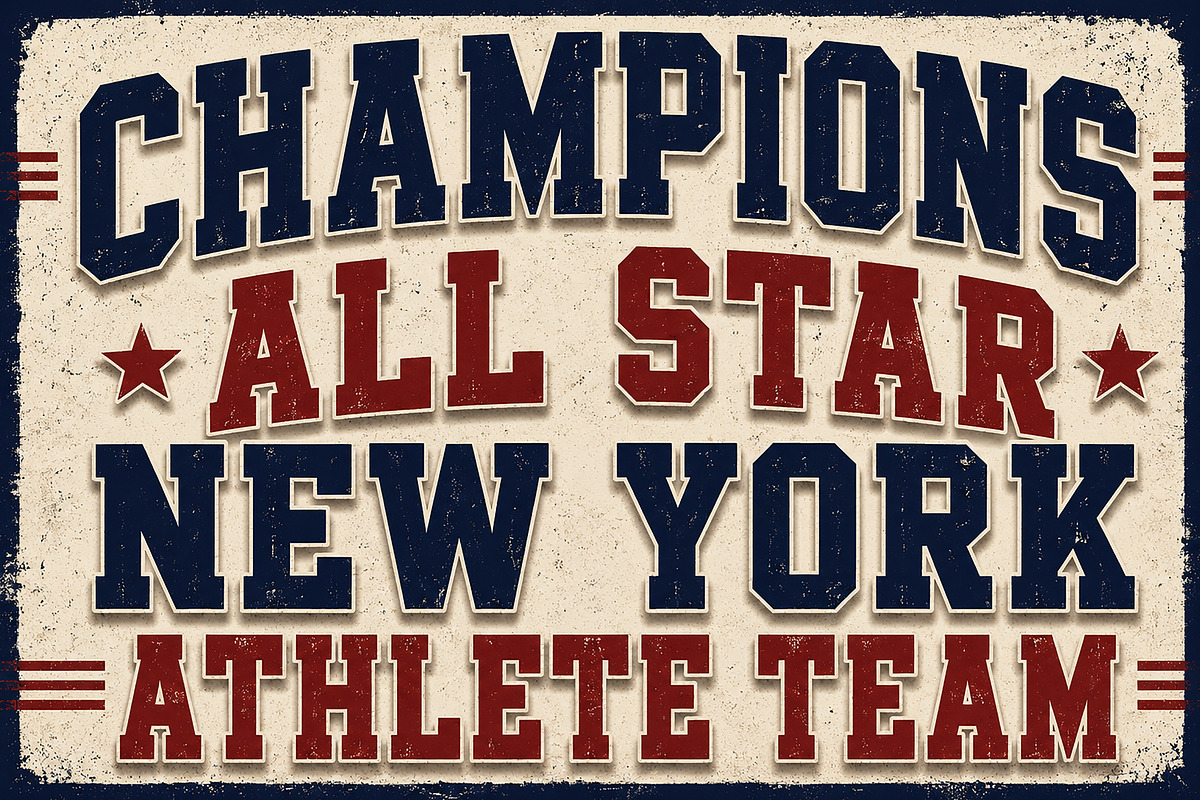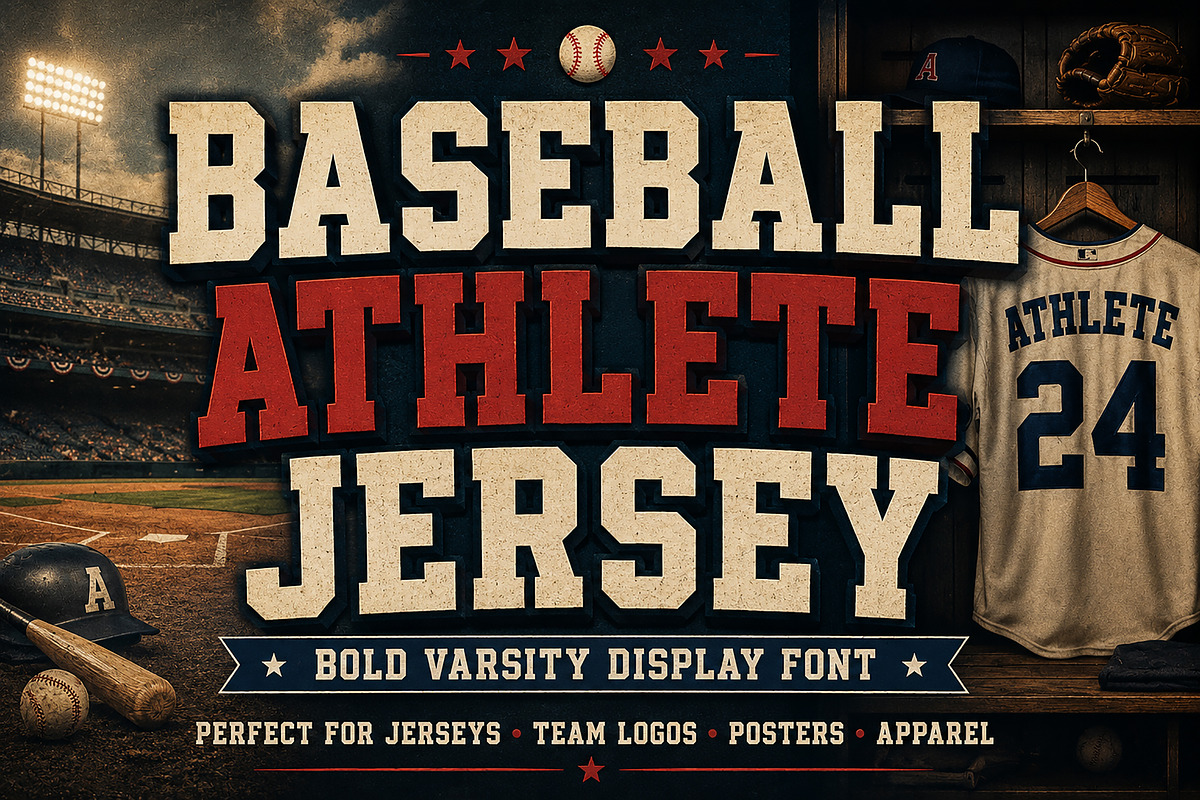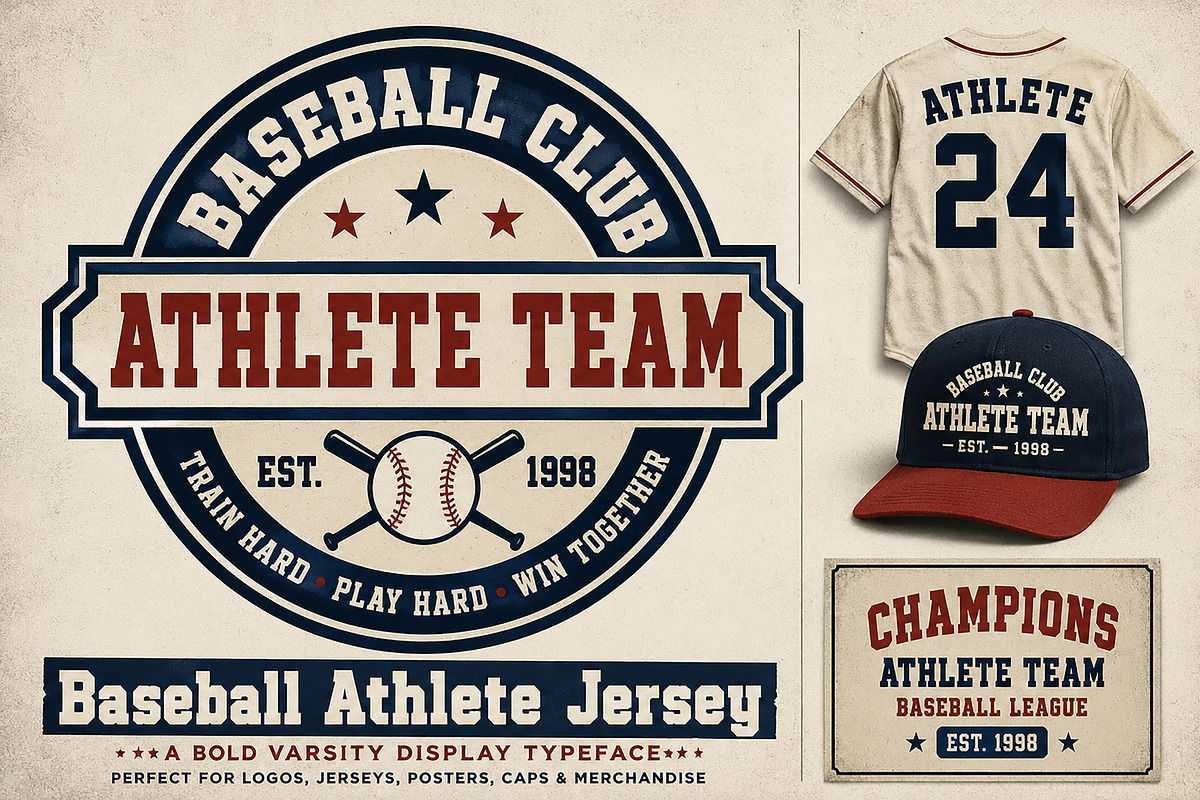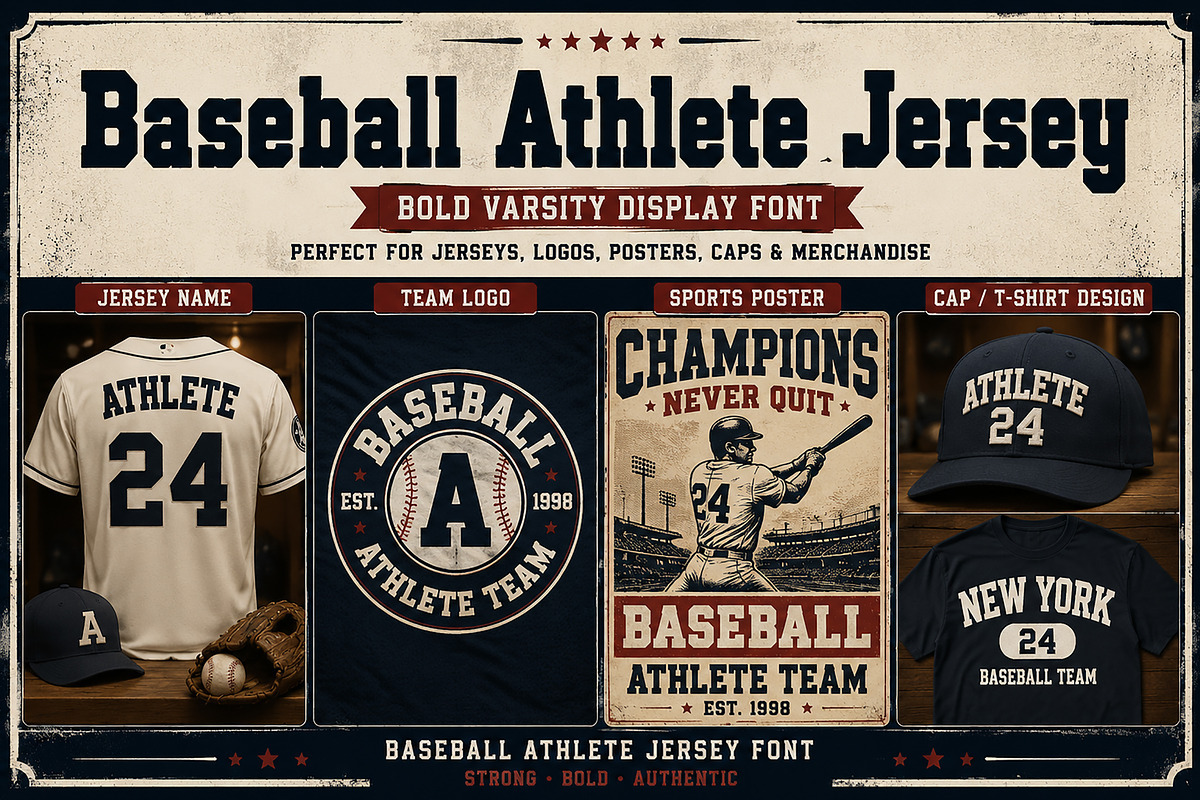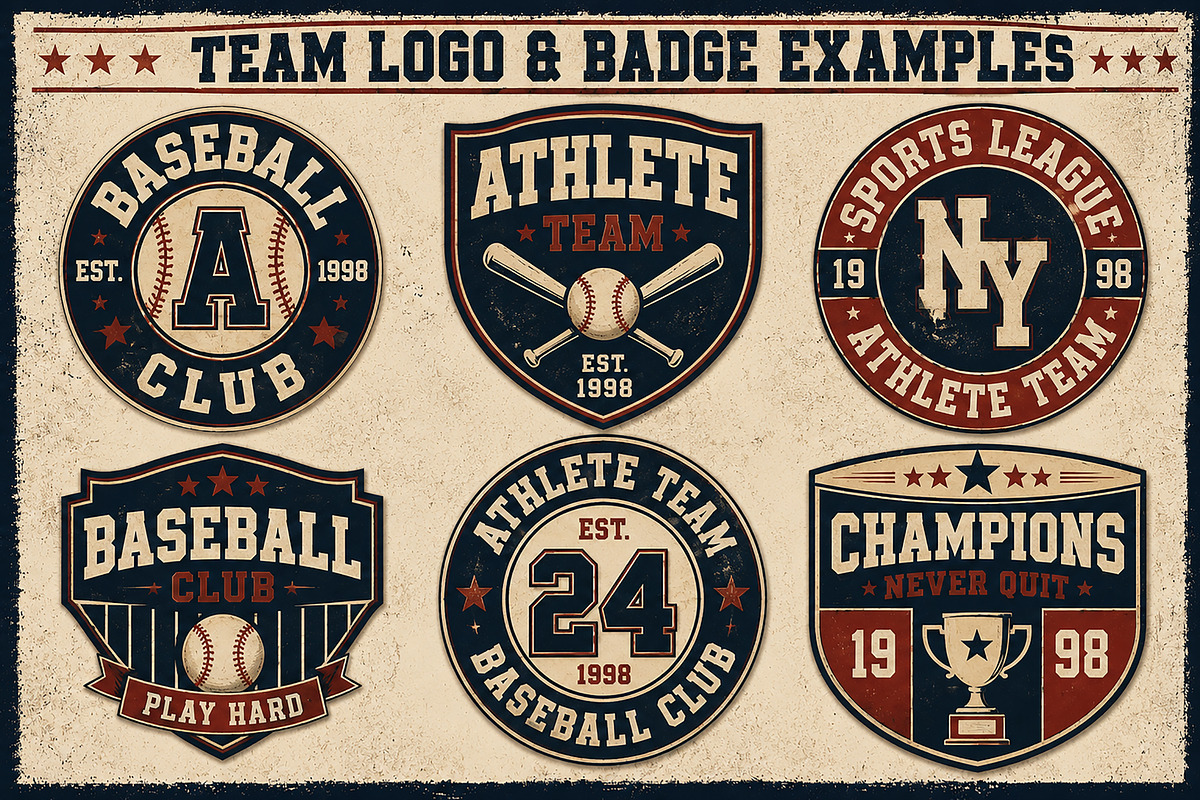
Baseball Athlete Jersey
Baseball Athlete Jersey – Display Font / Varsity Font / Sports Font
Baseball Athlete Jersey is a bold varsity-style display font inspired by classic baseball and American athletic jersey lettering. Featuring strong block letterforms with a rugged distressed texture, this font delivers an authentic sports and championship-inspired appearance perfect for competitive and energetic designs.
The vintage athletic style combined with bold slab-serif characters creates a powerful retro sports aesthetic ideal for team branding, baseball jerseys, college graphics, sports logos, apparel, posters, gaming titles, and merchandise.
Designed to stand out in both print and digital projects, Baseball Athlete Jersey gives your typography a strong, masculine, and professional athletic character with a timeless varsity look.
Uppercase Characters
Distressed Texture Style
Bold Slab Serif Letterforms
Athletic Varsity Design